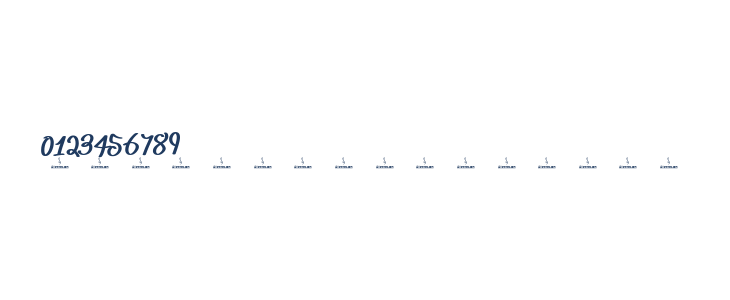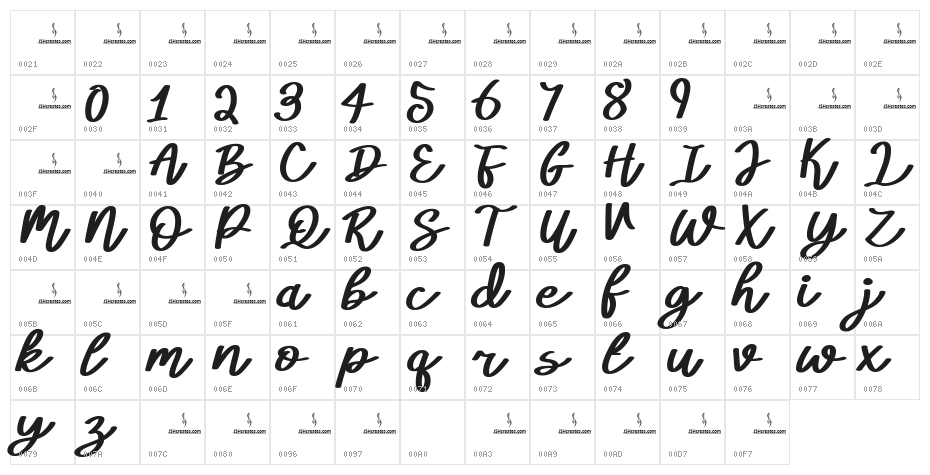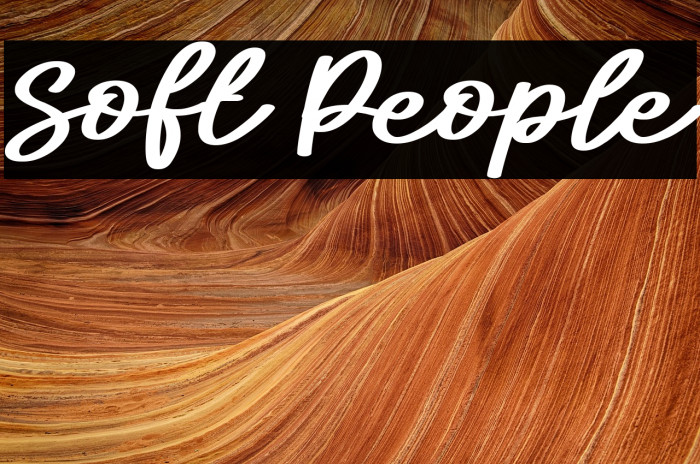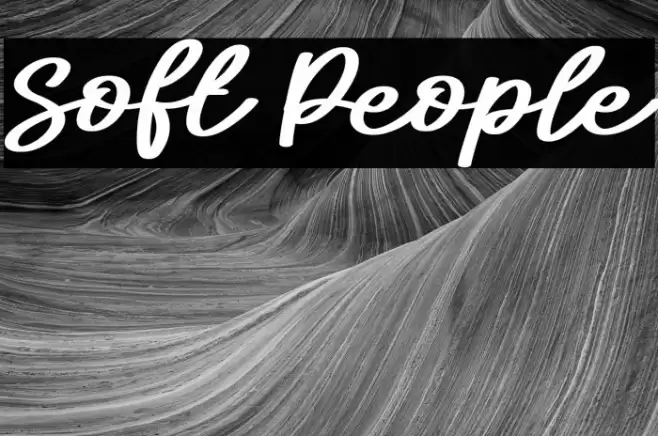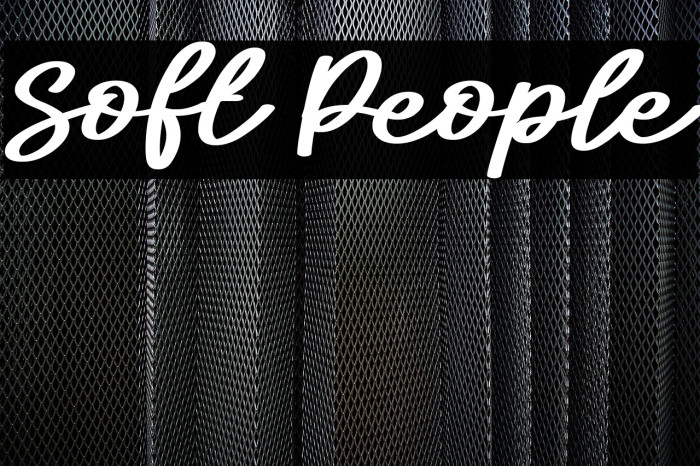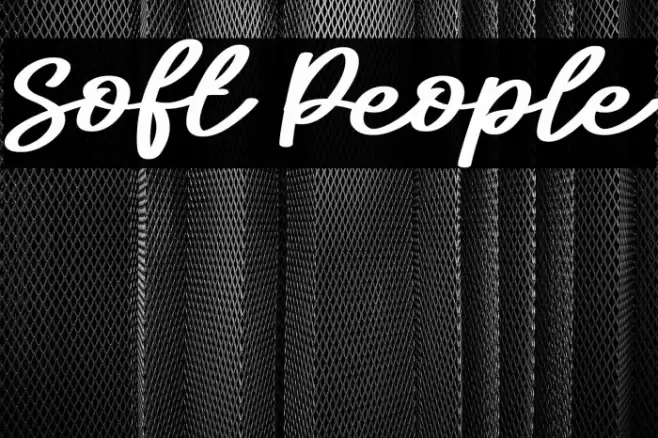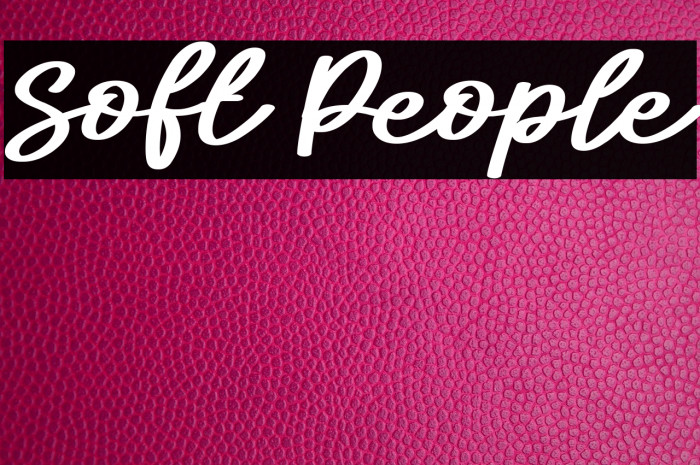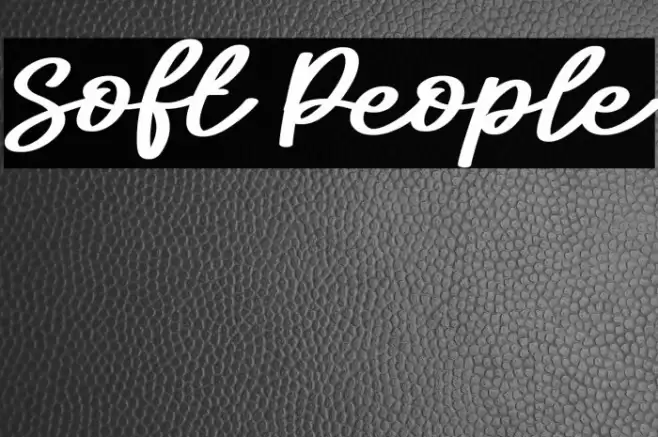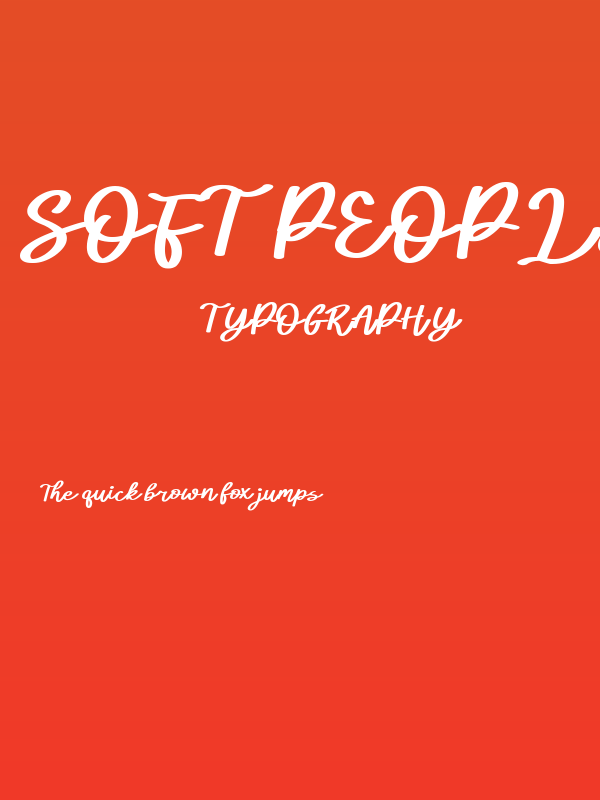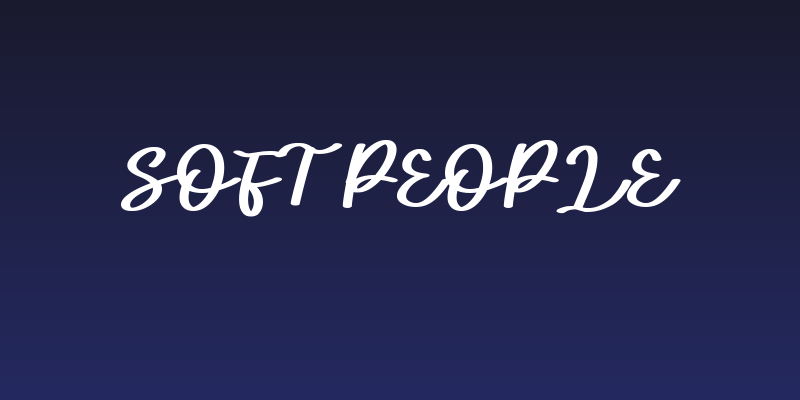
Soft People Font
Soft People Description
This font features a bold, flowing script style that exudes a sense of elegance and fluidity. The characters are interconnected, giving it a handwritten appearance that is both sophisticated and approachable. The uppercase letters maintain a consistent height, while the lowercase letters have a playful bounce, adding to the dynamic feel. The numbers are equally stylized, maintaining the same flowing aesthetic. This font is perfect for projects that require a personal touch, such as invitations, greeting cards, or branding materials. Its bold strokes and smooth curves make it stand out, ensuring readability while maintaining an artistic flair.
| Proposed Projects | Ideal for invitations, greeting cards, branding, and personal projects. |